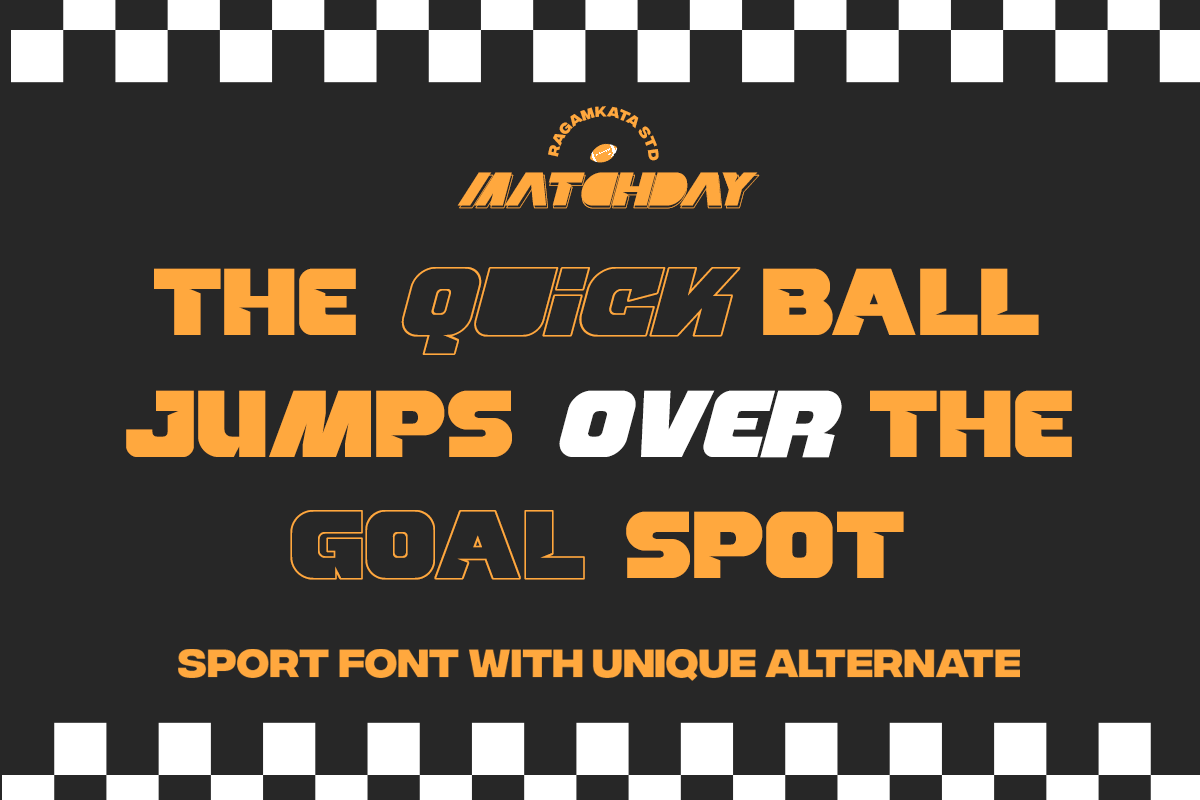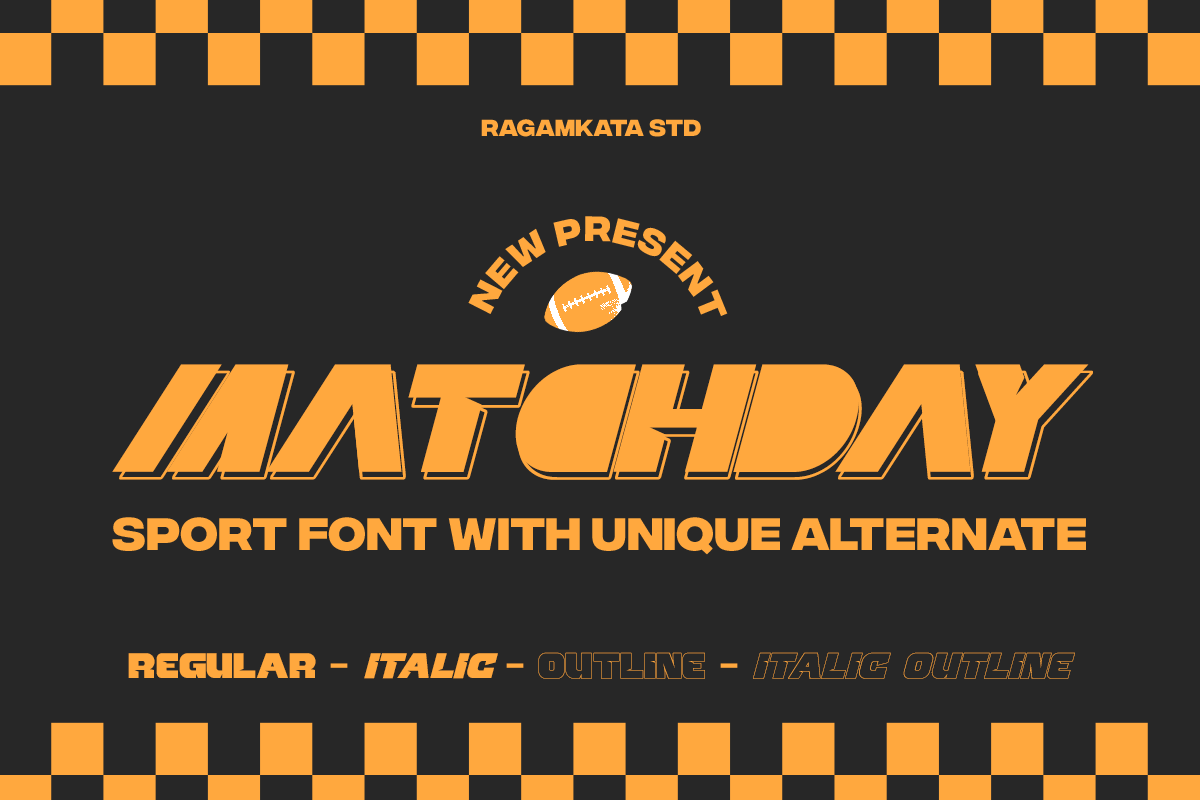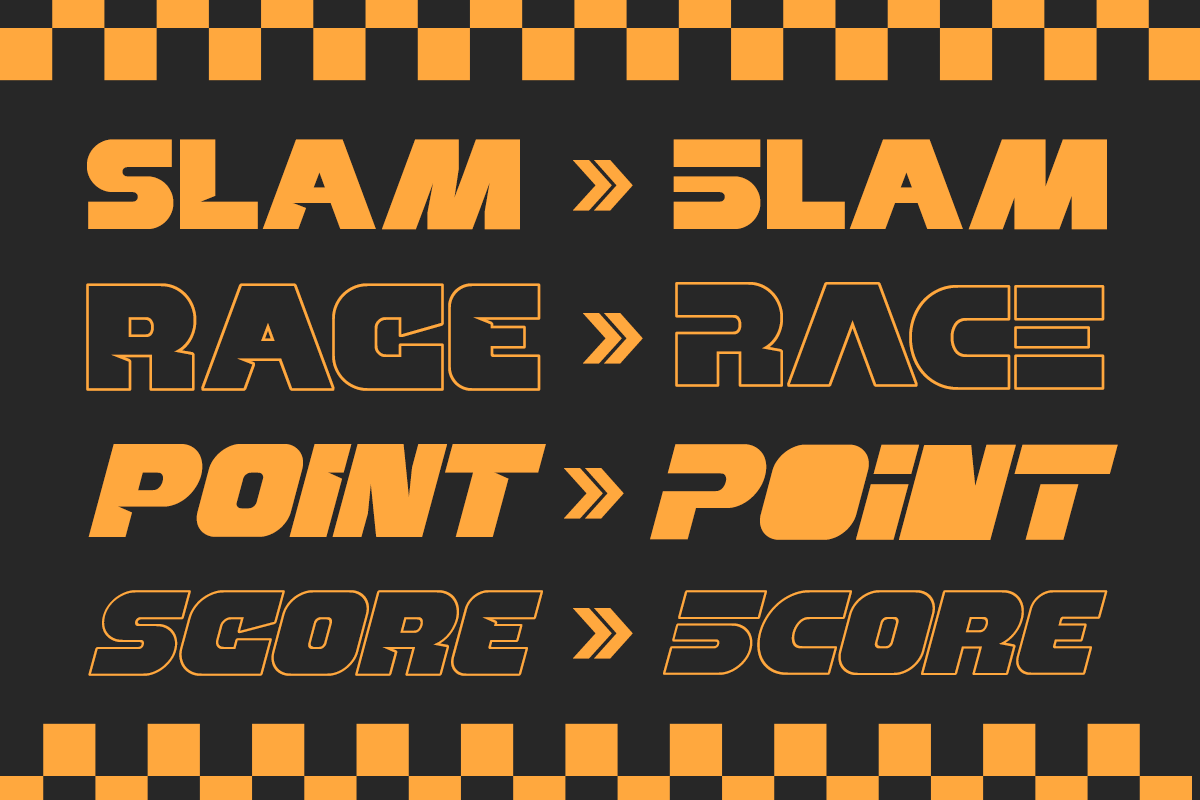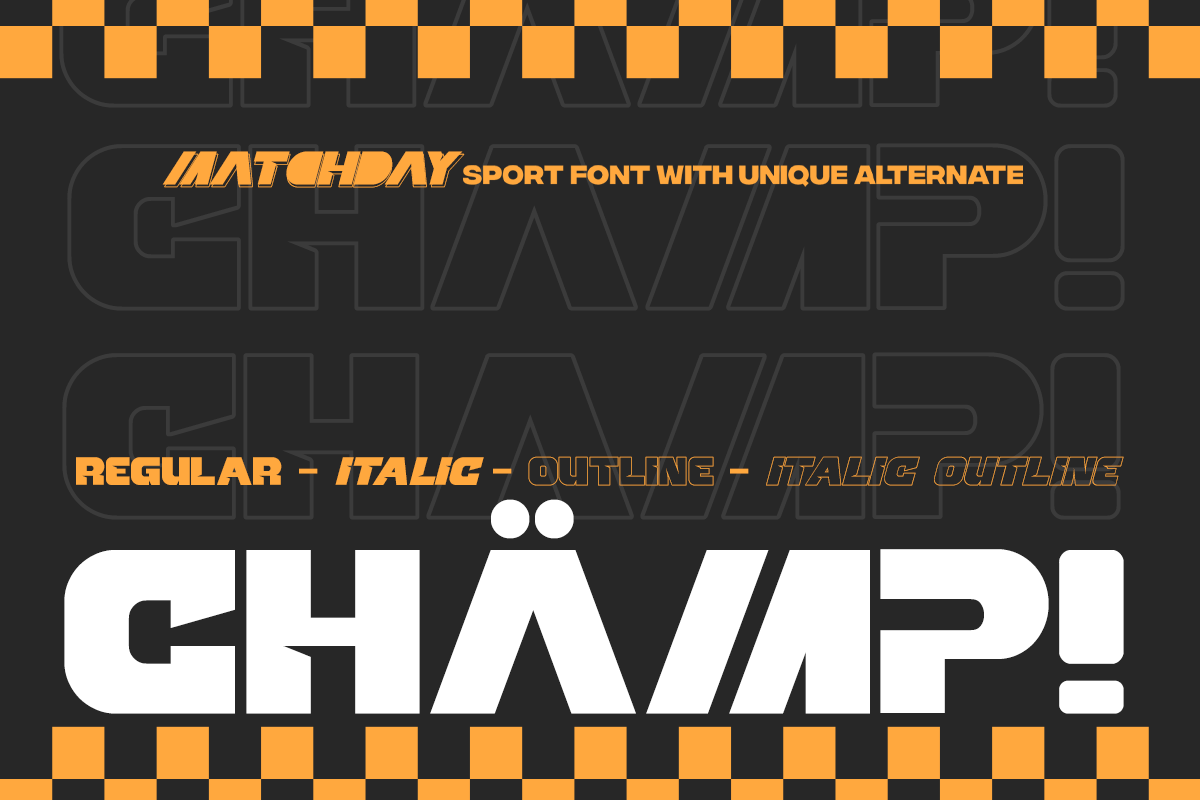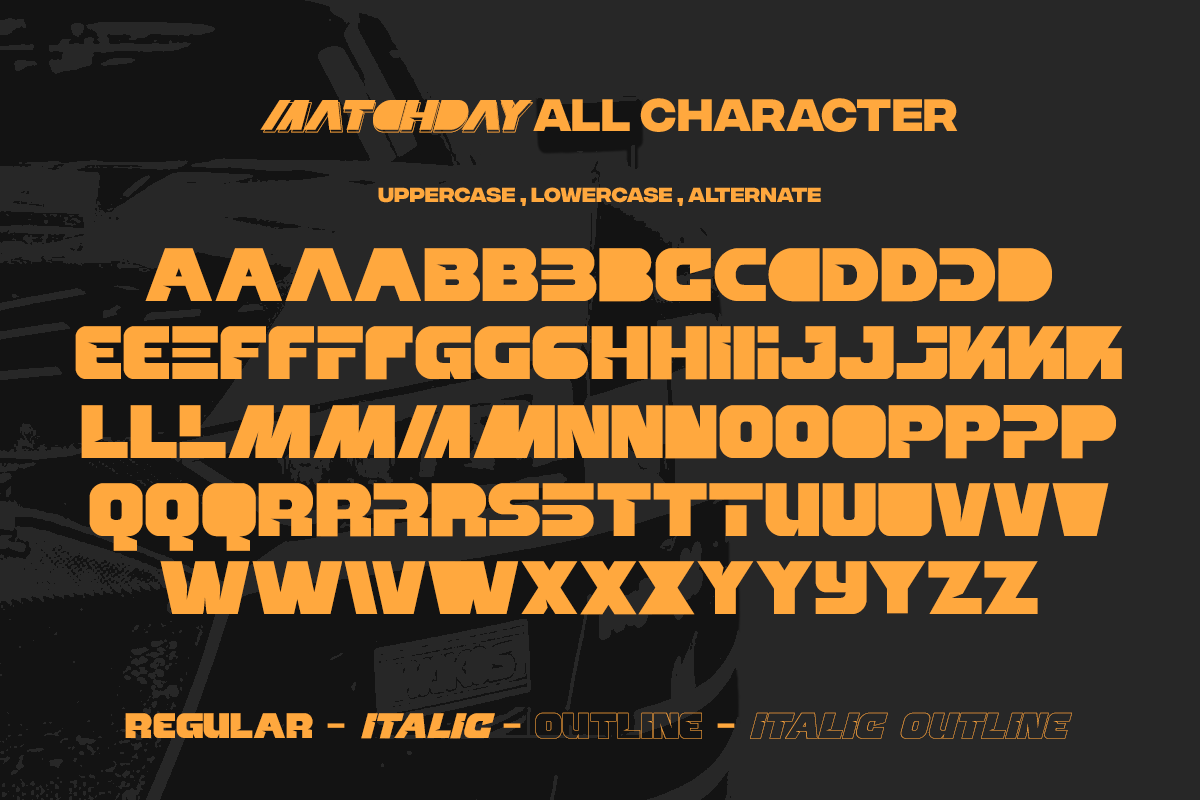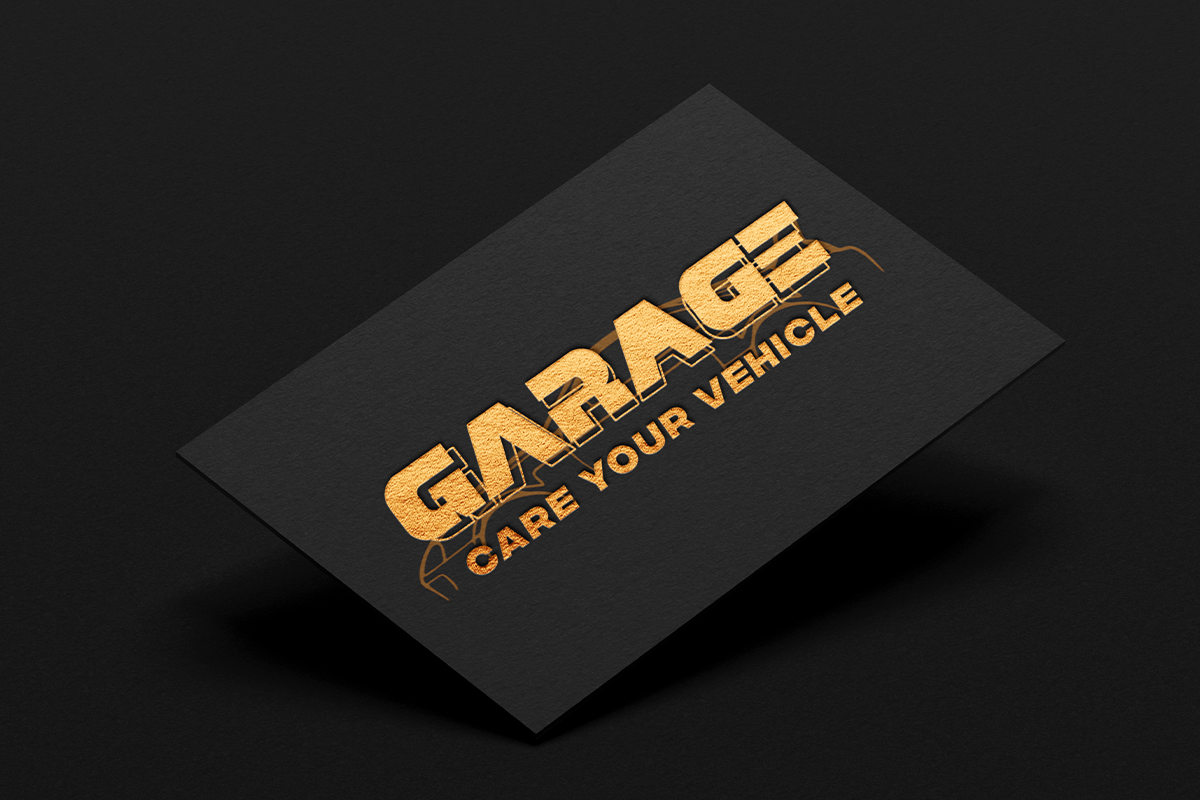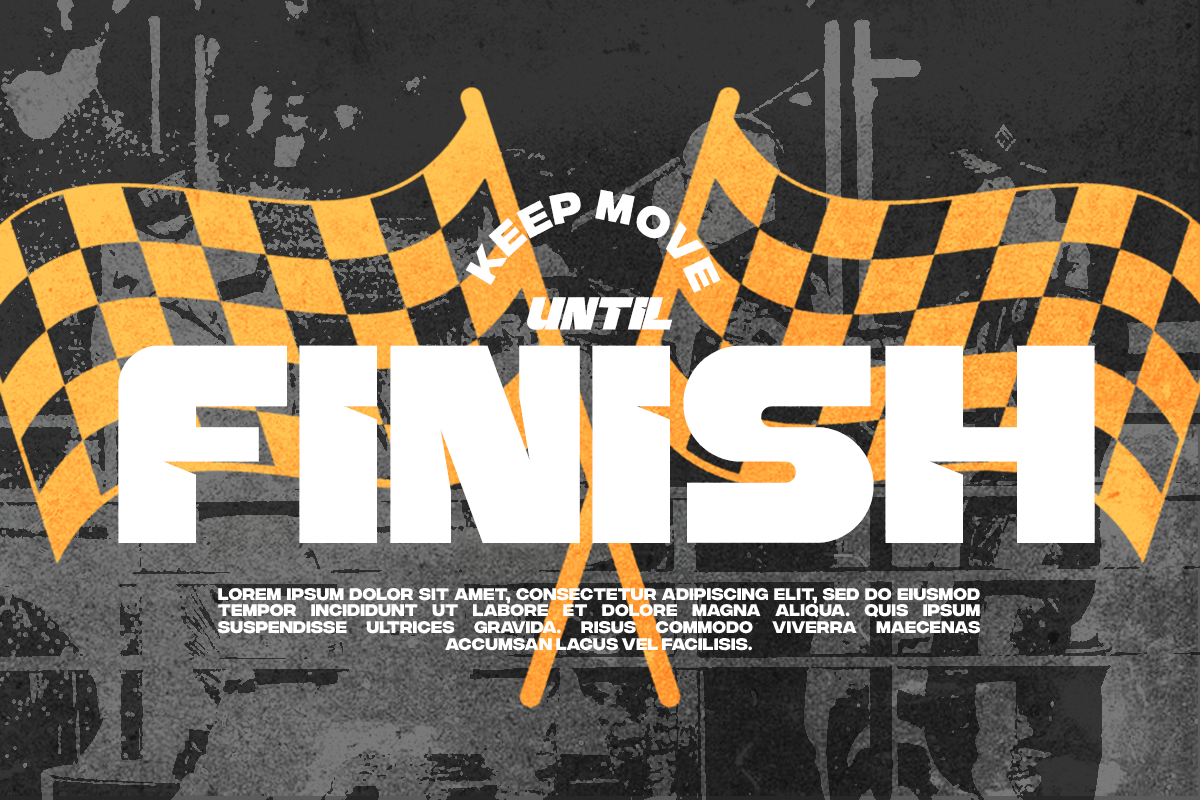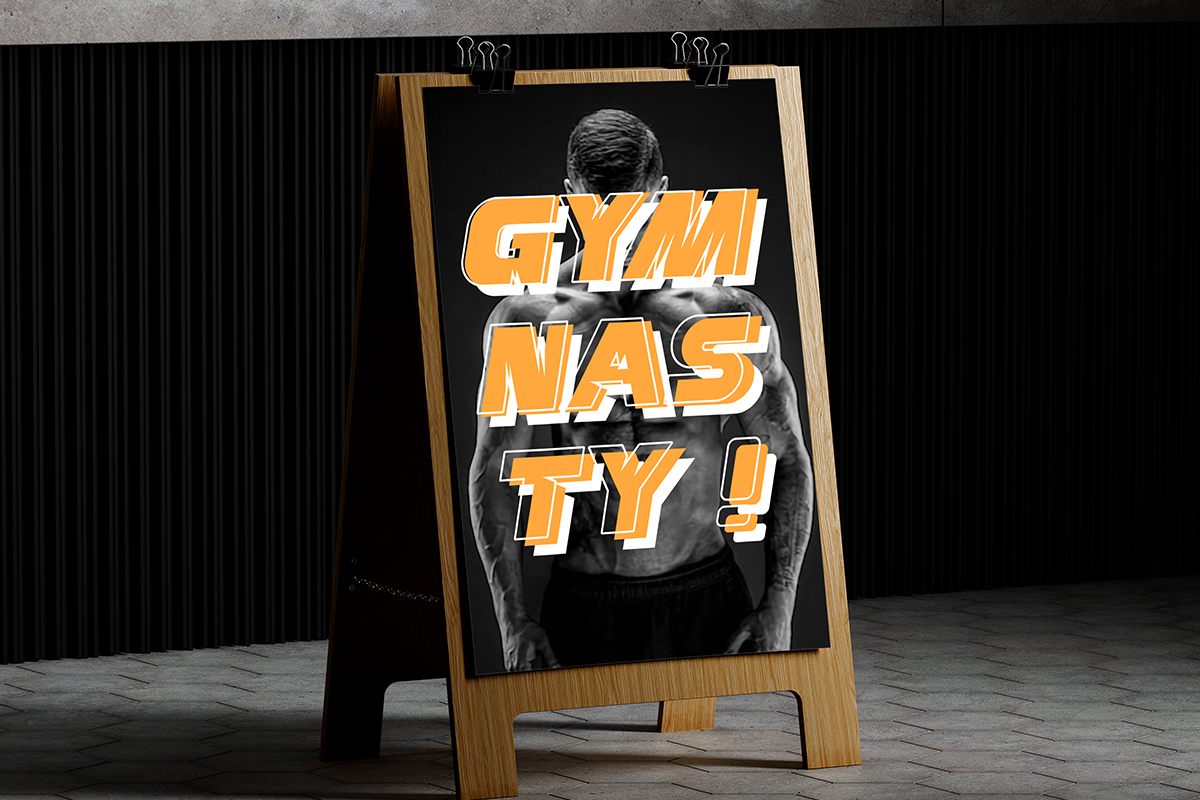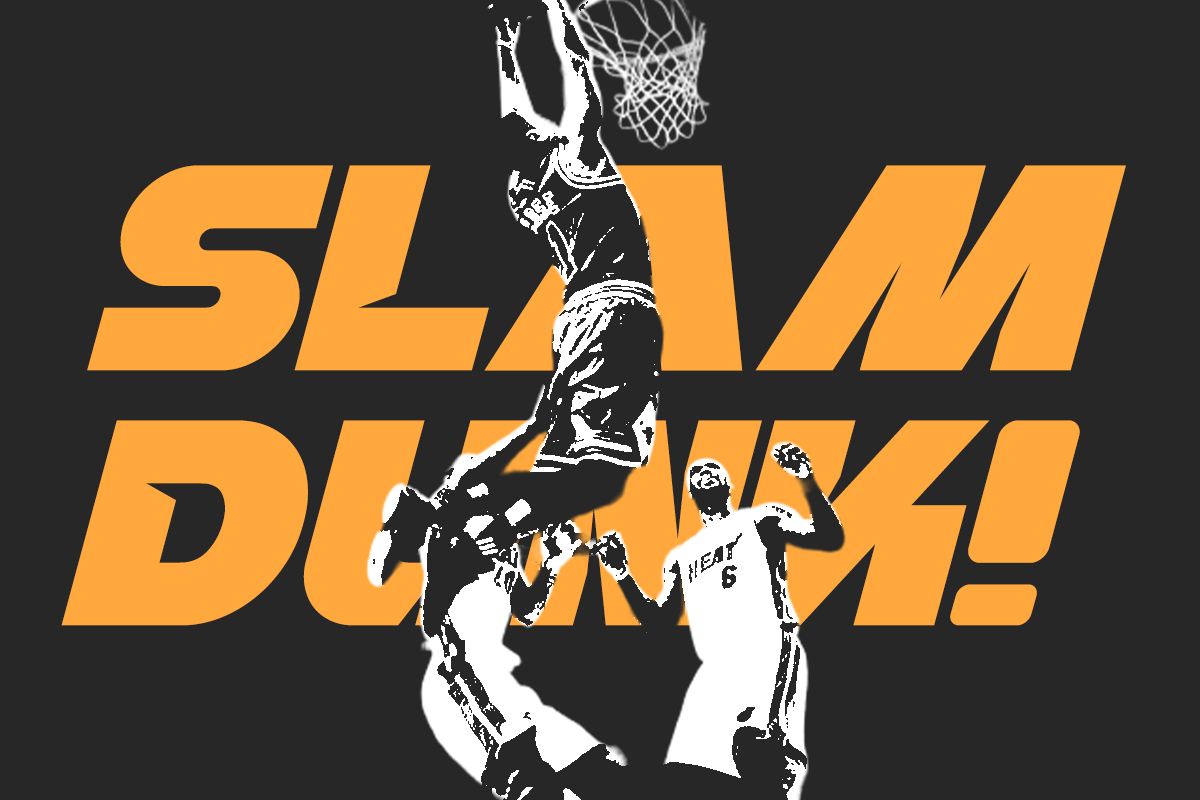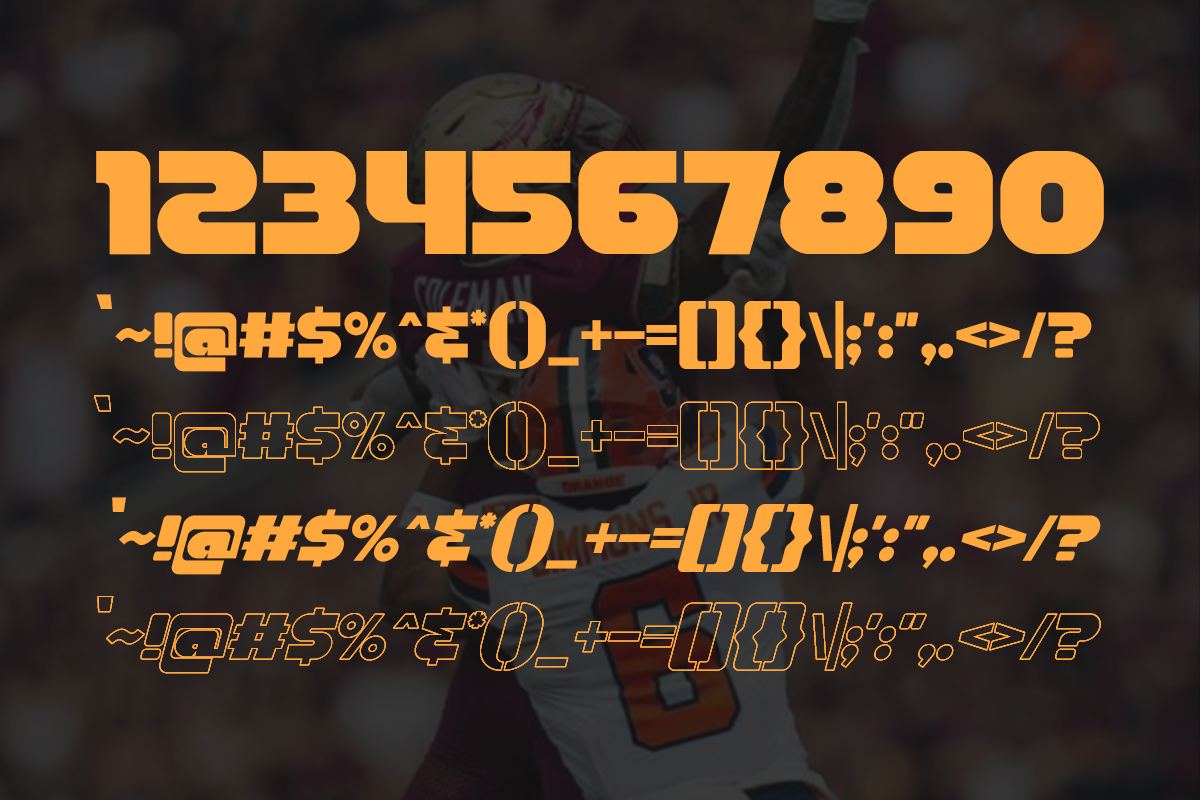
Matchday - Sport Font
Introducing Matchday, a sport font awesome with unique alternates that combines the power and speed of modern sports with the elegance of classic design. Perfect for sports headlines, logos, branding, and more, Matchday features four styles: Regular, Italic, Outline & Italic Outline. Its smooth curves, clear ligatures, and modern aesthetics ensure readability and a dynamic presence.
Matchday is versatile and suitable for various projects, including invitations, magazines, product packaging, posters, and more. Ideal for personal projects, studios, corporate, and creative agencies, Matchday adds a powerful, attractive, and contemporary touch to any design. Additionally, this font includes many unique alternate characters, offering even more creative possibilities.
- Four unique styles: Regular, Italic, Outline & Italic Outline
- Strong, confident letterforms
- Unique Alternate Characters
- Punctuation & Number
Enhance your sports-themed designs with Matchday, the ultimate font for bold and impactful typography.